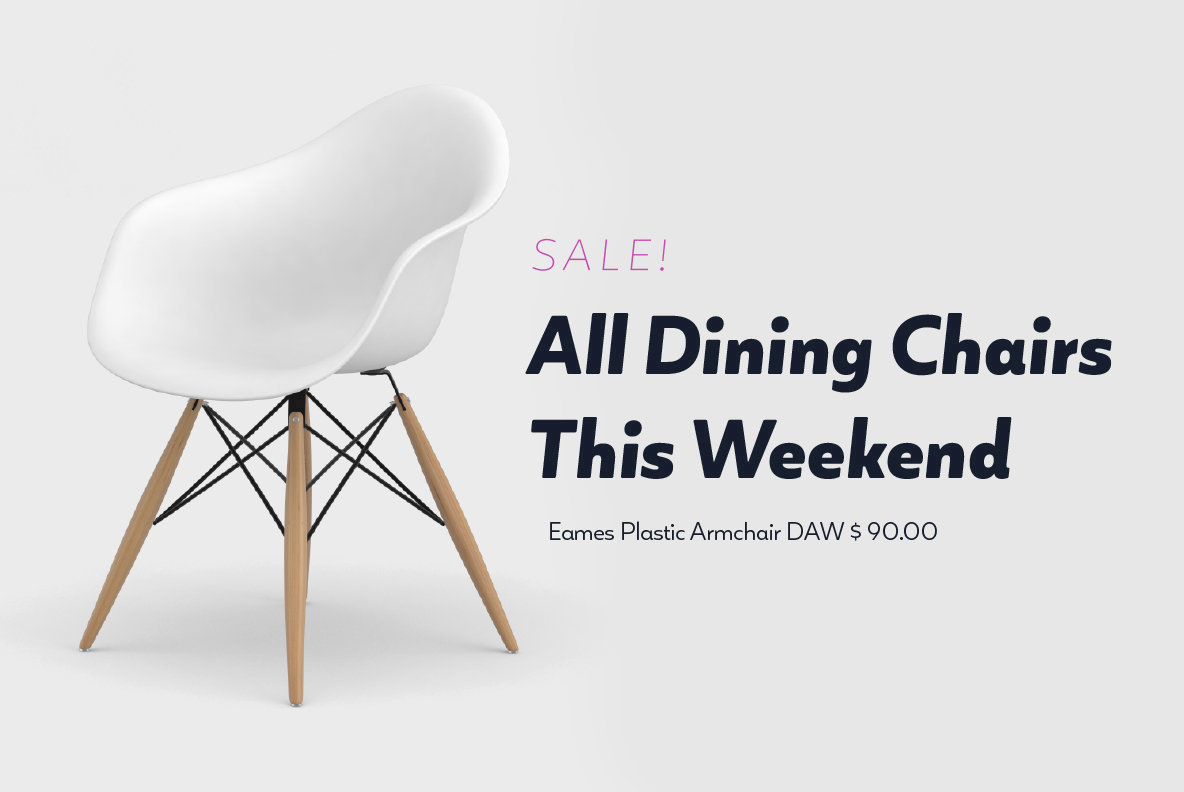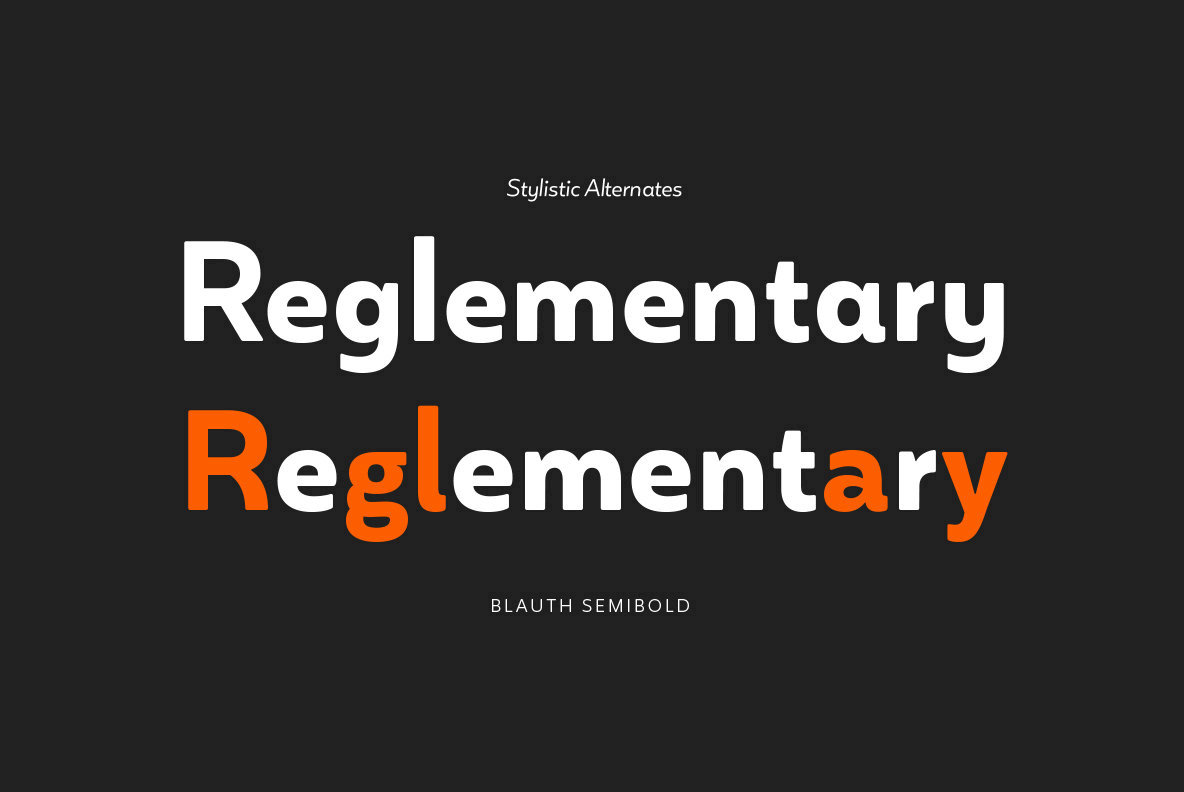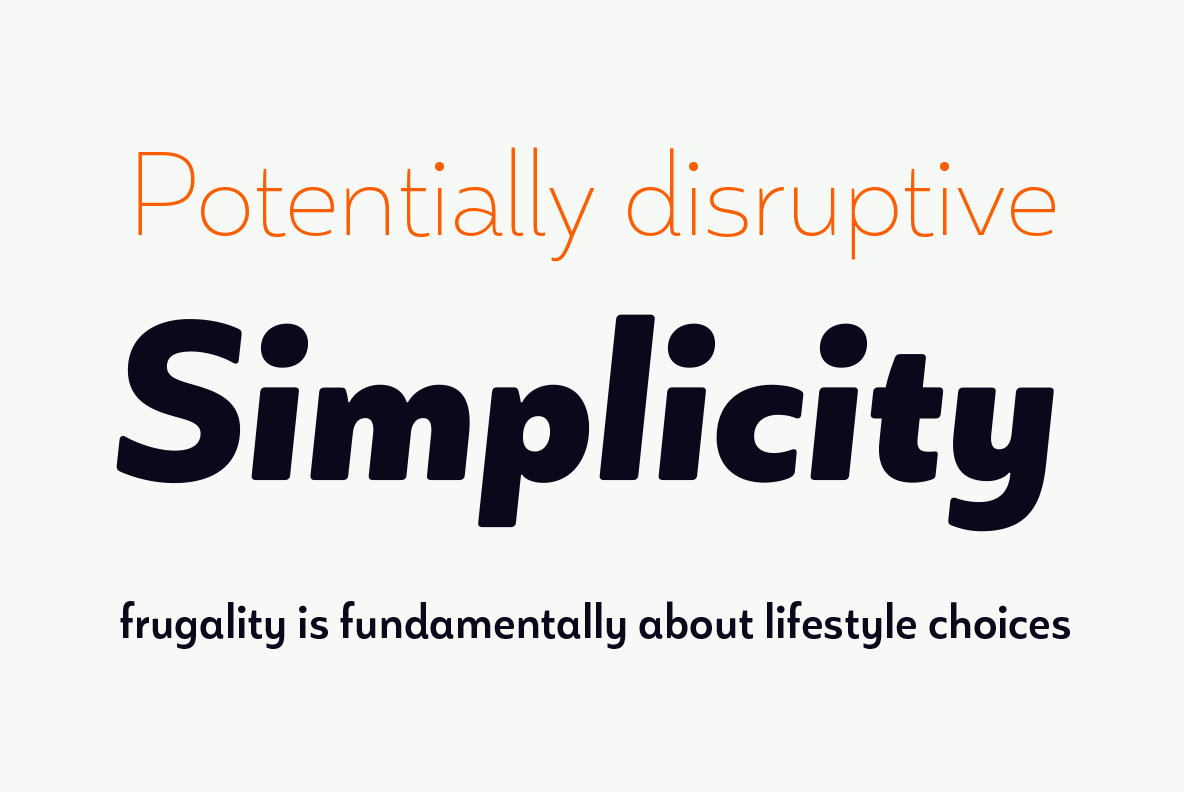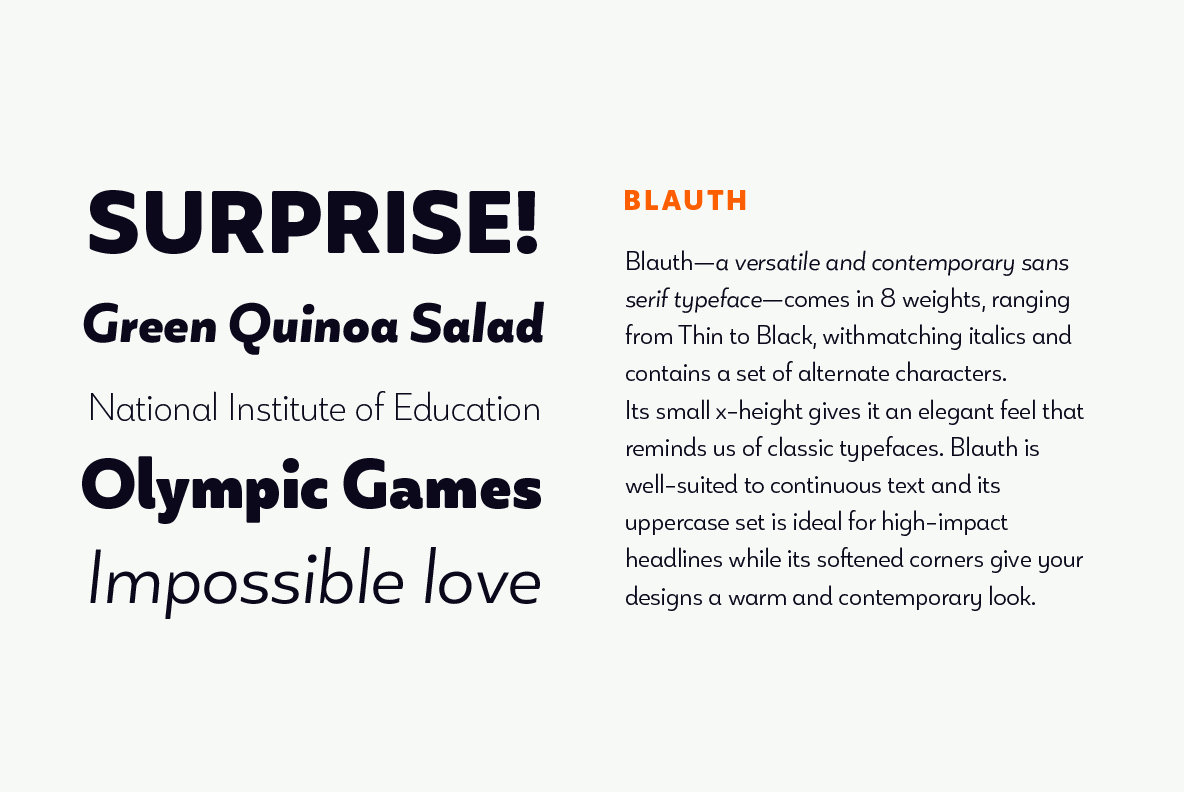
Blauth Font
Blauth—a versatile and contemporary sans serif typeface—comes in 8 weights, ranging from Thin to Black, with matching italics and contains a set of alternate characters.
Its small x-height gives it an elegant feel that reminds us of classic typefaces. Blauth is well-suited to continuous text and its uppercase set is ideal for high-impact headlines while its softened corners give your designs a warm and contemporary look.